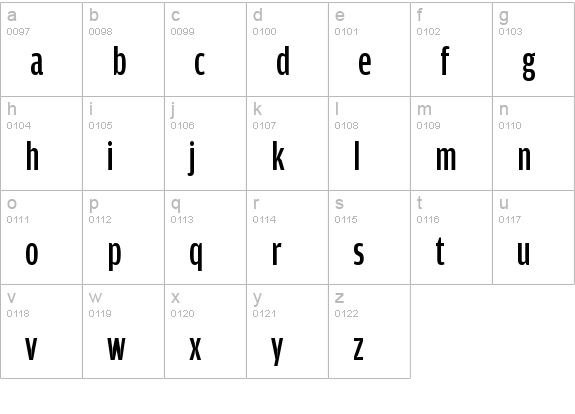
AmplitudeComp-Medium is a balanced, medium-weight variant in the AmplitudeComp typeface family \xE2\x80\x94 well suited to sub-headlines, navigation, and balanced editorial work.
AmplitudeComp-Medium font is a versatile and modern typeface that strikes the perfect balance between readability and style. With its clean lines and medium weight, this font is ideal for a wide range of design projects, from editorial layouts to branding materials. Its subtle yet impactful presence on the page ensures that your message is conveyed with clarity and sophistication. What sets AmplitudeComp-Medium font apart is not only its sleek design, but also the fact that it is available for free download at FontsMarket.com. This means that you can easily access this high-quality font without any cost, making it a valuable addition to your font library. Whether you're a professional designer looking to elevate your projects or a hobbyist seeking to enhance your creative endeavors, AmplitudeComp-Medium font is a must-have resource that offers both style and accessibility.